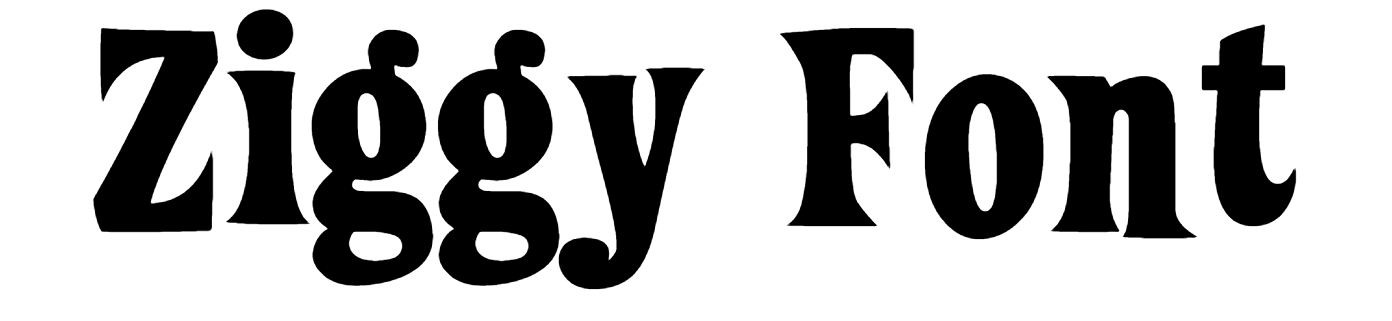
Ziggy
Ziggy is a fancy font. It's a decorative display font with plenty of personality, made to grab attention. It's a free download, and you can try it with your own text in the preview above first.
Ziggy has the full alphabet in upper and lowercase. There are no numbers, so you'll need a second font for dates, prices or phone numbers. Punctuation is limited, so look at the character map if you need a specific symbol. It has 23 accented letters, but not the full set for Spanish or French, so test any non-English words first.
Ziggy is a natural fit for posters, logos and eye-catching headlines. The file has no kerning data, so in logos and big titles check pairs like AV, To and Wa and tighten the spacing by hand. Use it for one standout word or headline and let simpler fonts handle the rest.
Partly. Ziggy has 23 accented letters, but not the complete set for Spanish, French or German. Type your words in the preview above to check before you use it.
No. Ziggy has no numbers, so pair it with another font for dates, prices or phone numbers.